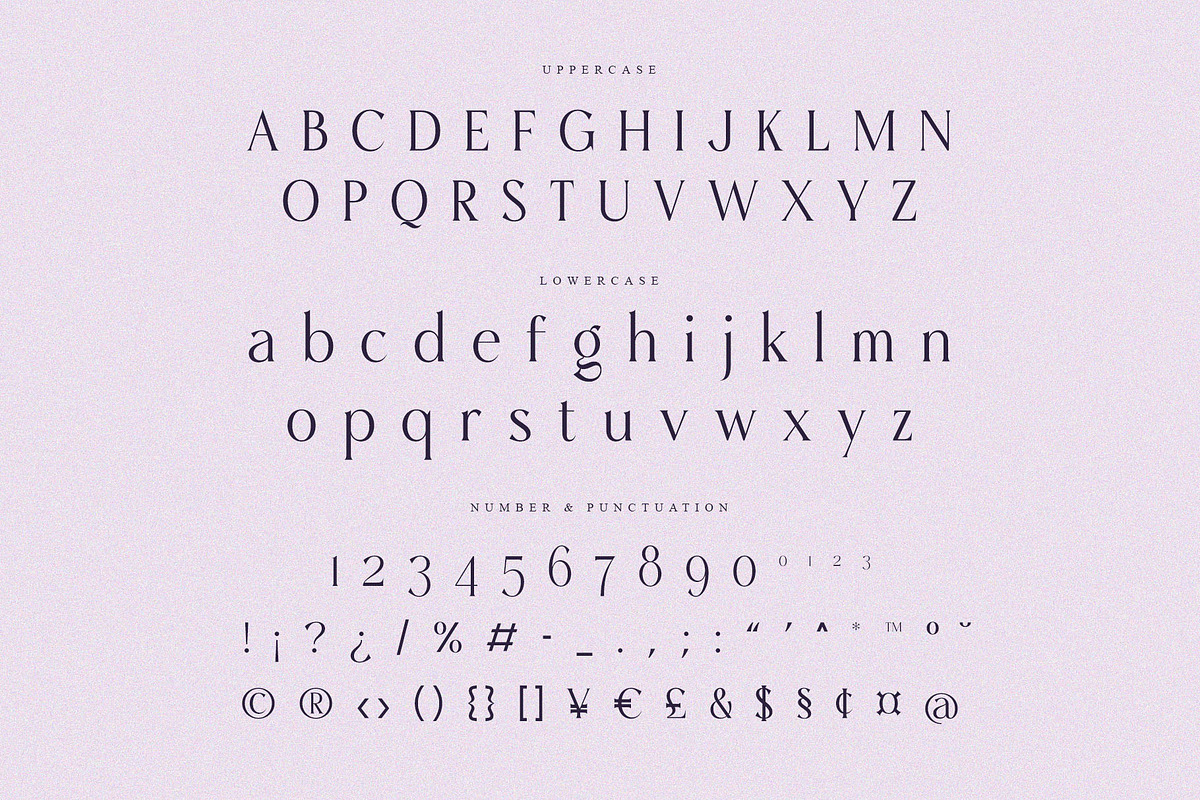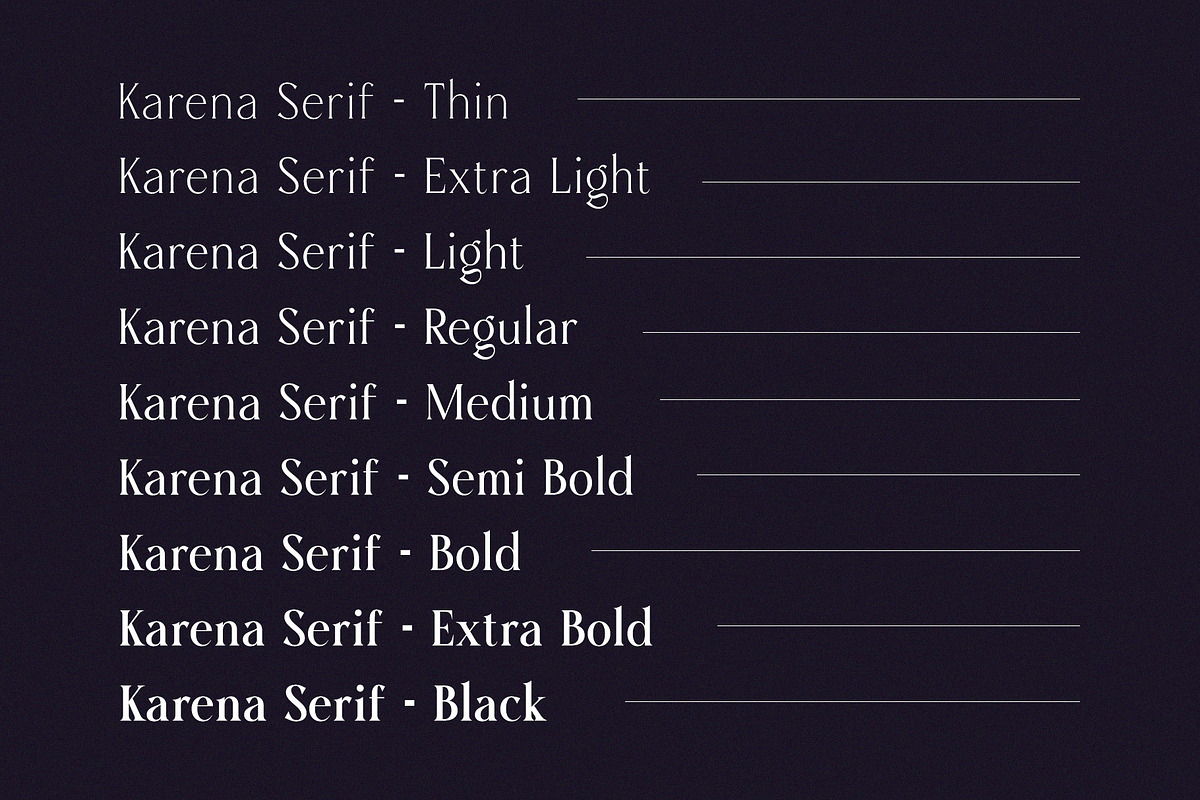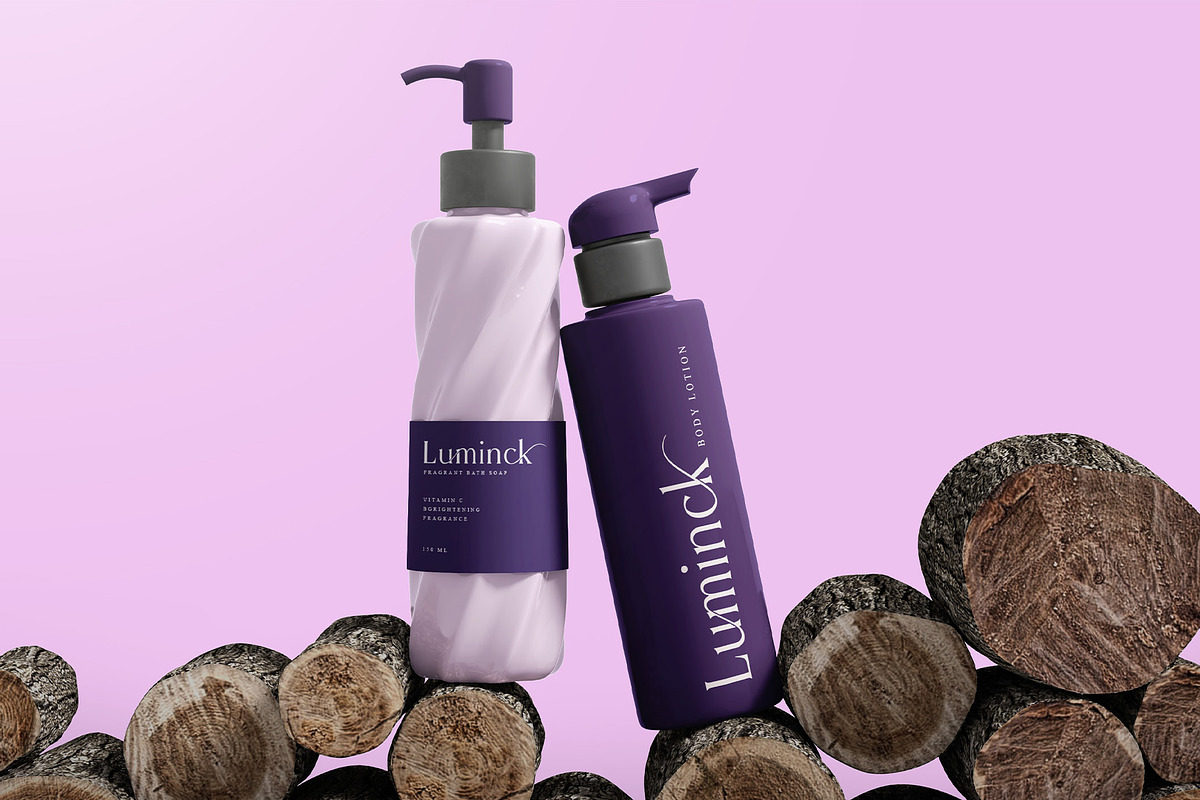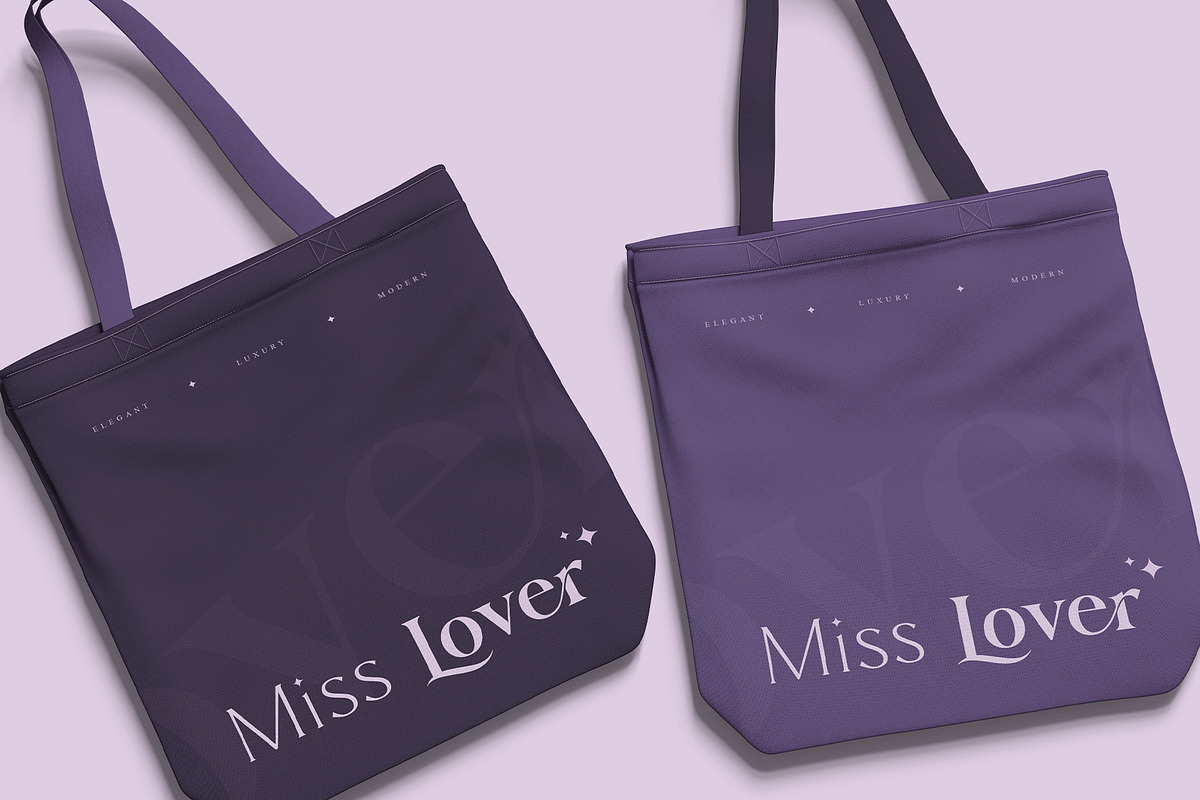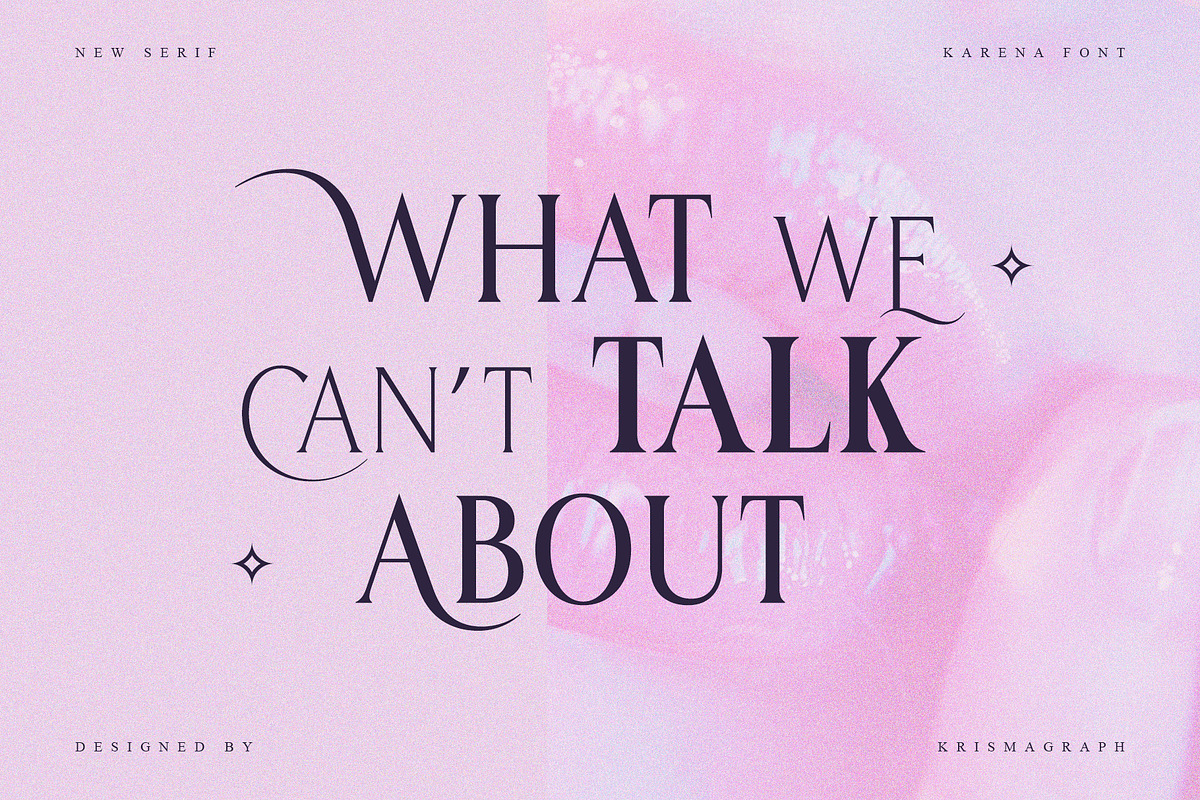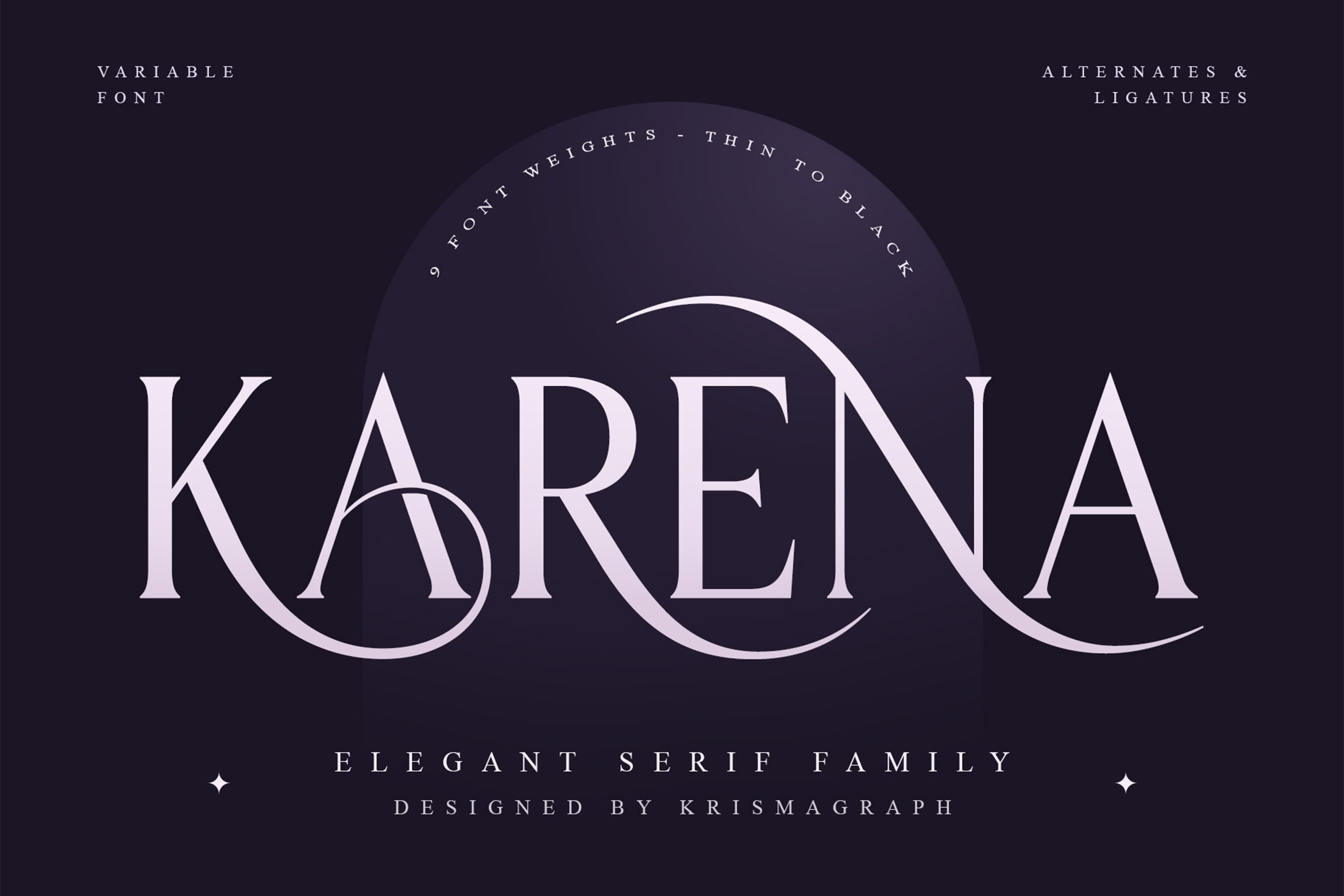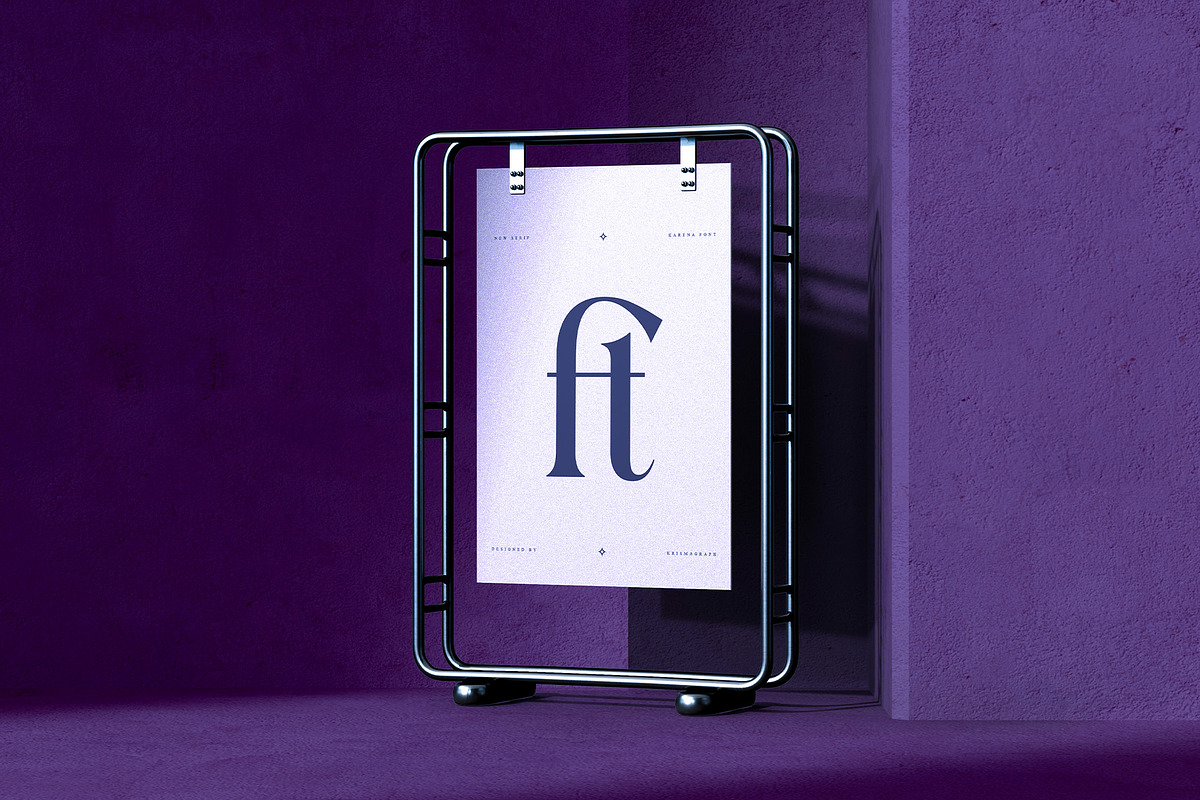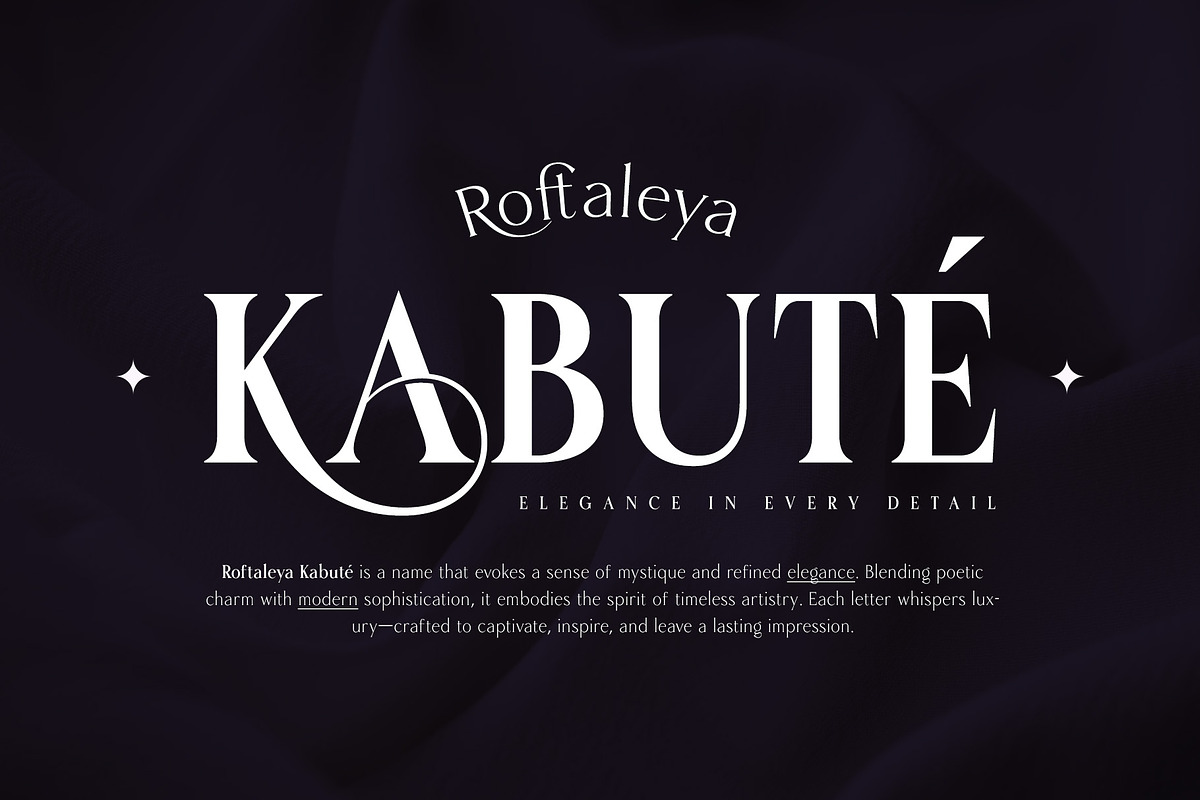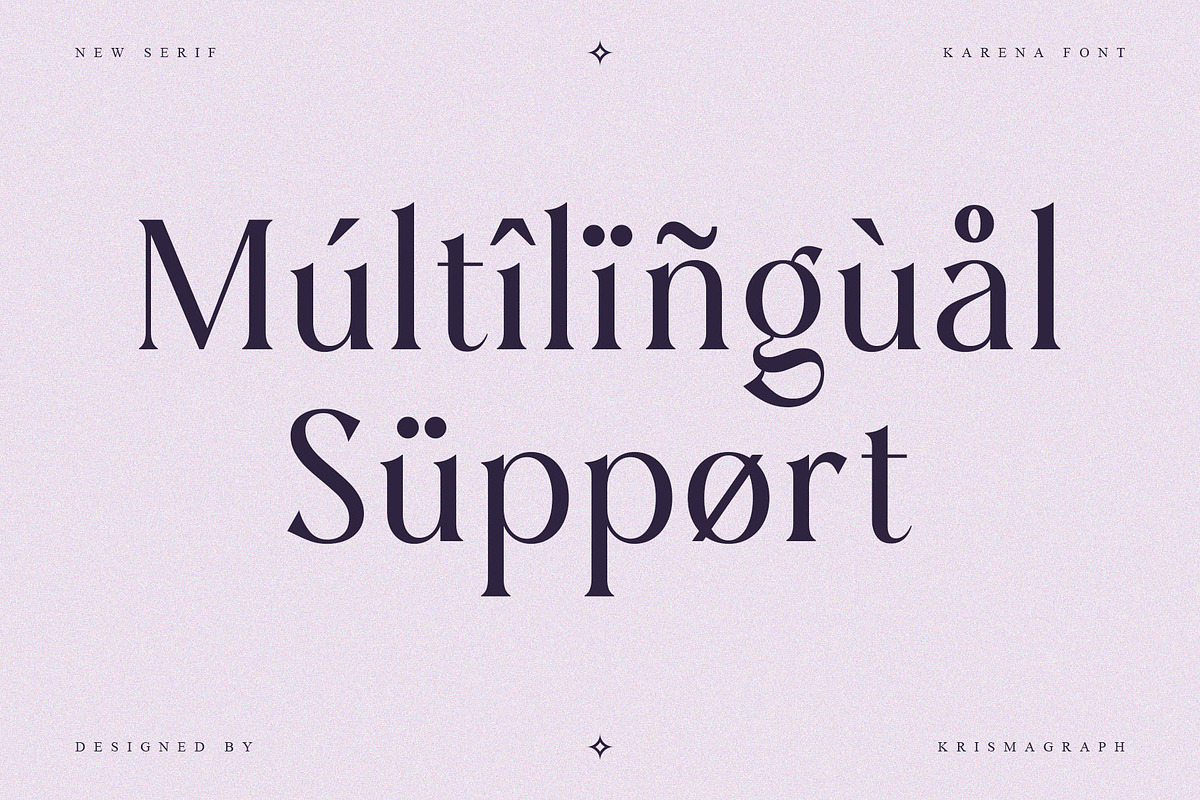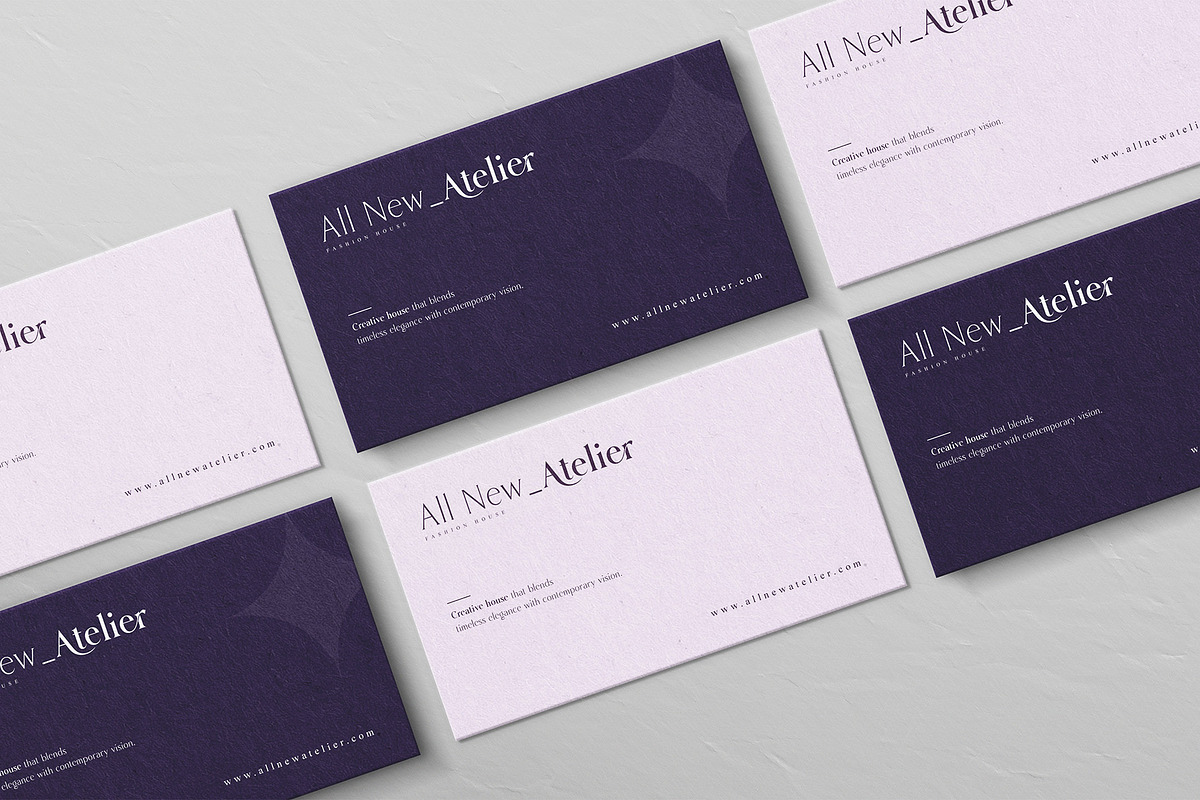
Karena – Elegant Serif Font Family
Introducing KARENA, an elegant serif font family designed to bring sophistication and timeless beauty to your designs. With its refined letterforms, graceful curves, and luxurious details, Karena blends modern minimalism with classic elegance, making it perfect for both display and editorial use.
This typeface includes 9 font weights (from Thin to Black), complete with alternates and ligatures, giving designers endless flexibility for creating unique compositions. Karena’s balanced contrast and subtle flair make it a perfect choice for branding, logos, magazine titles, invitations, packaging, fashion, and luxury design projects.
Every character in Karena is carefully crafted to create a strong visual impression while maintaining readability and harmony. The result is a versatile serif that shines in both digital and print media — a true staple for any modern design toolkit.
- 9 Font Weights (Thin → Black)
- Elegant Alternates & Ligatures
- Variable Font Included
- Multilingual Support (Western Europe)
Perfect for Branding, Editorial, and High-End Design
Recommended for: Luxury branding, logos, magazine covers, packaging, invitations, social media templates, posters, and website headlines.